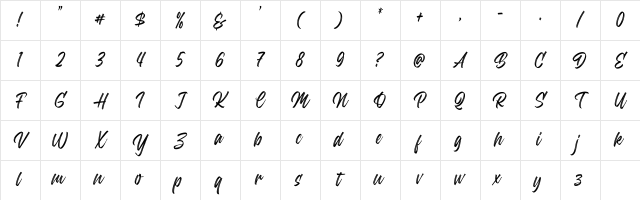
Complete American Brush Regular glyph index. Displaying only characters natively supported by American Brush Regular font.
American Brush flows with the natural rhythm of handwritten lettering, making it ideal for designs that call for warmth and personal expression.
Font Pairing: Combine American Brush with a simple geometric sans for maximum contrast - the tension between flowing curves and clean structure is a classic typographic pairing.
Pro Tip: Use American Brush for short runs of text - names, titles, or taglines. Extended body copy in script faces tires the eye quickly.